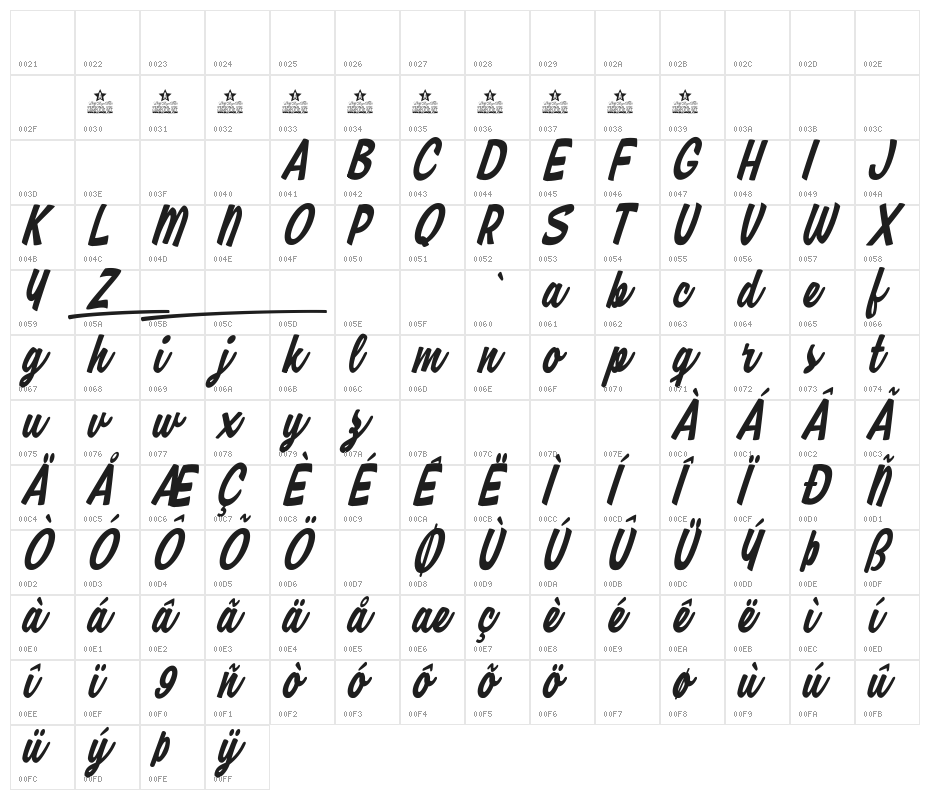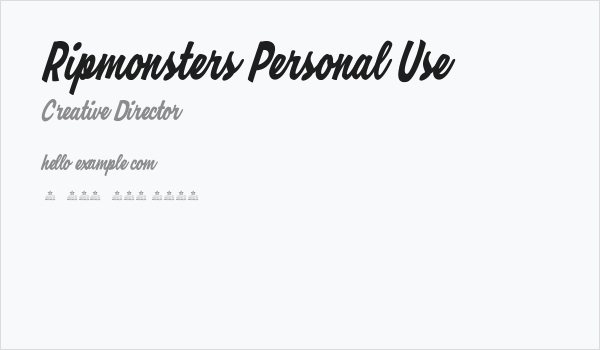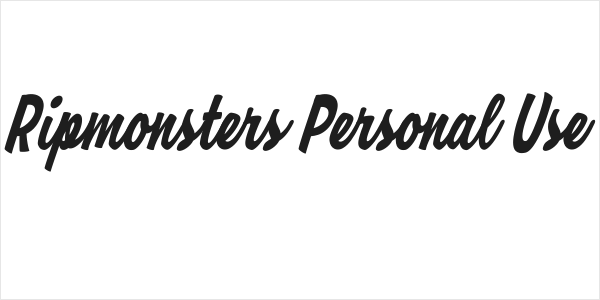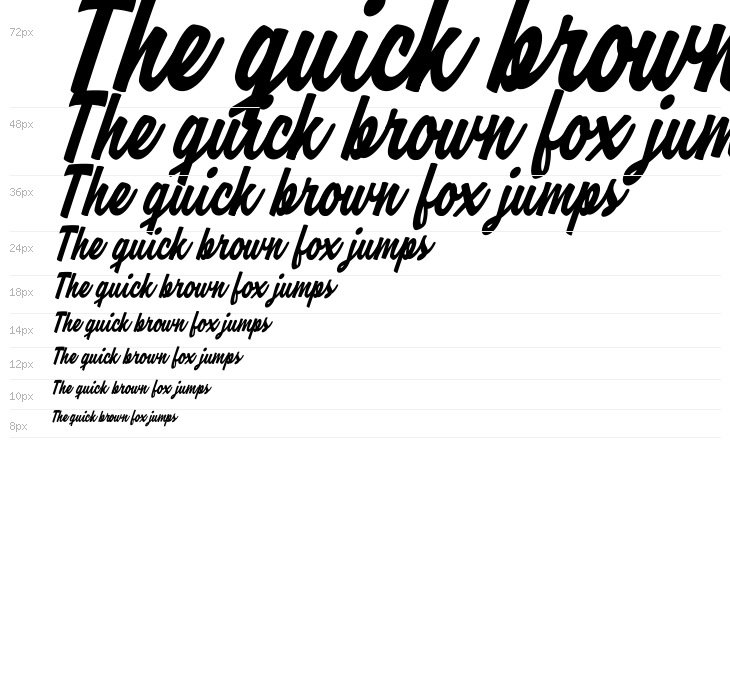
Ripmonsters Personal Use Font
Ripmonsters Personal Use Description
This font features a bold, dynamic script style with a strong, energetic presence. The letters are slanted, giving a sense of motion and fluidity, while maintaining a consistent thickness throughout each character. The uppercase letters are tall and commanding, while the lowercase letters are slightly more compact but still maintain the same boldness. The numbers and special characters follow the same stylistic cues, ensuring a cohesive look across all glyphs. The overall design is modern and eye-catching, making it suitable for projects that require a bold statement.
| Proposed Projects | Ideal for branding, logos, posters, and any design that needs a bold, energetic touch. |